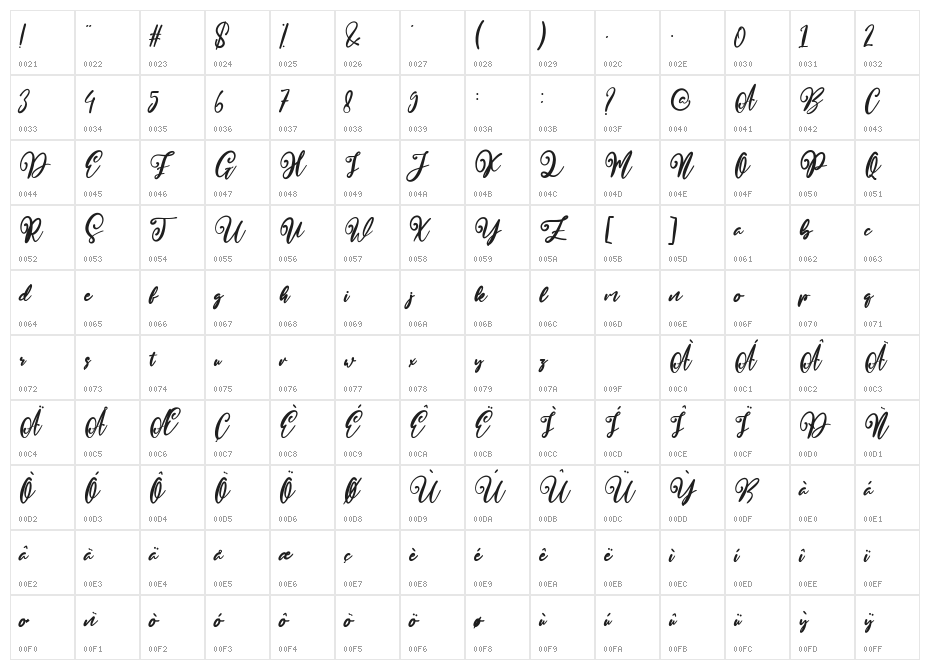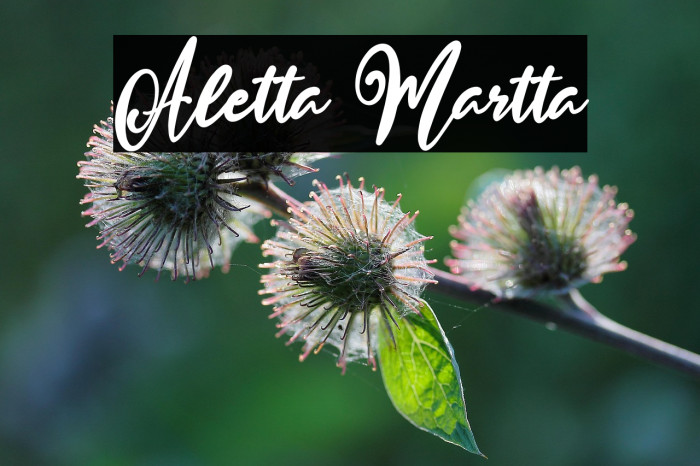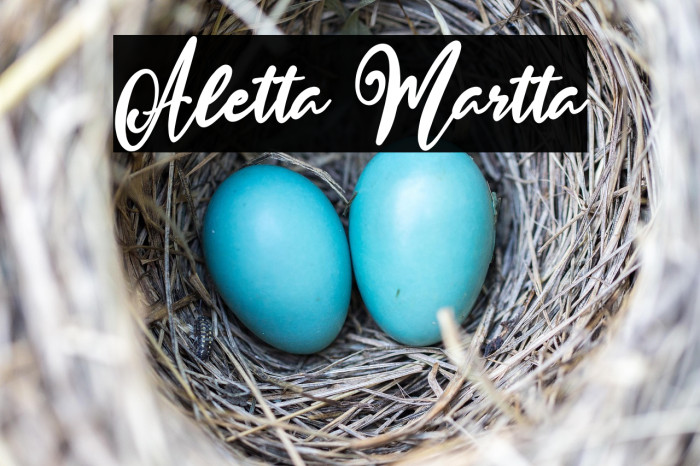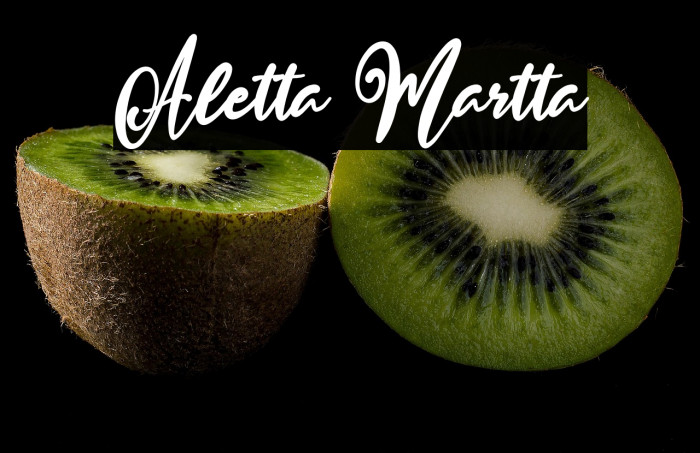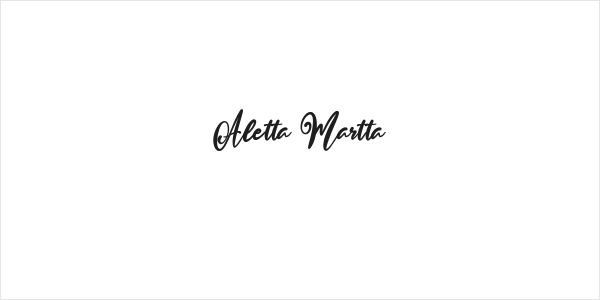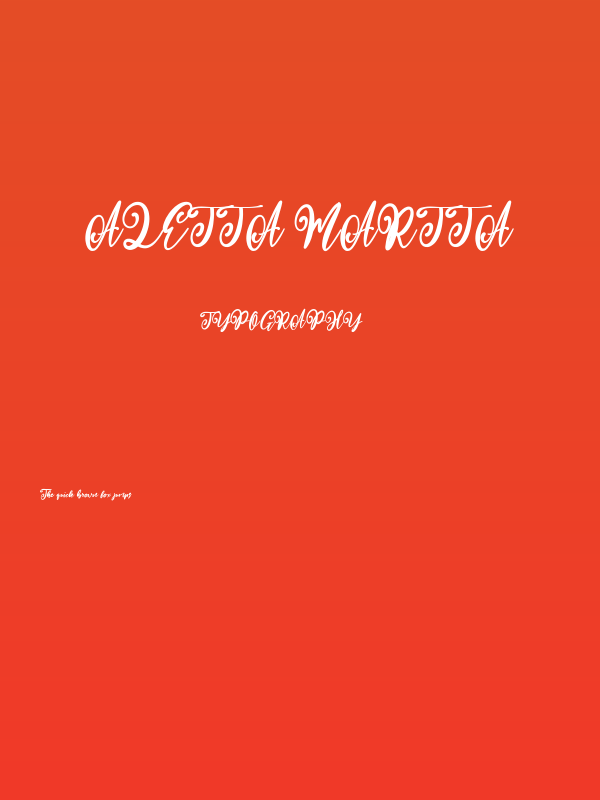
Aletta Martta Font
Aletta Martta Description
This font features an elegant and flowing script style, characterized by its smooth, cursive letterforms. The uppercase letters are ornate and interconnected, giving a sense of continuity and grace. The lowercase letters maintain a consistent flow, with rounded edges and a slight slant that enhances readability. The numerals are bold and clear, matching the overall aesthetic of the alphabet. Special characters are designed with the same attention to detail, ensuring they blend seamlessly with the rest of the font. This font exudes sophistication and is perfect for projects that require a touch of elegance.